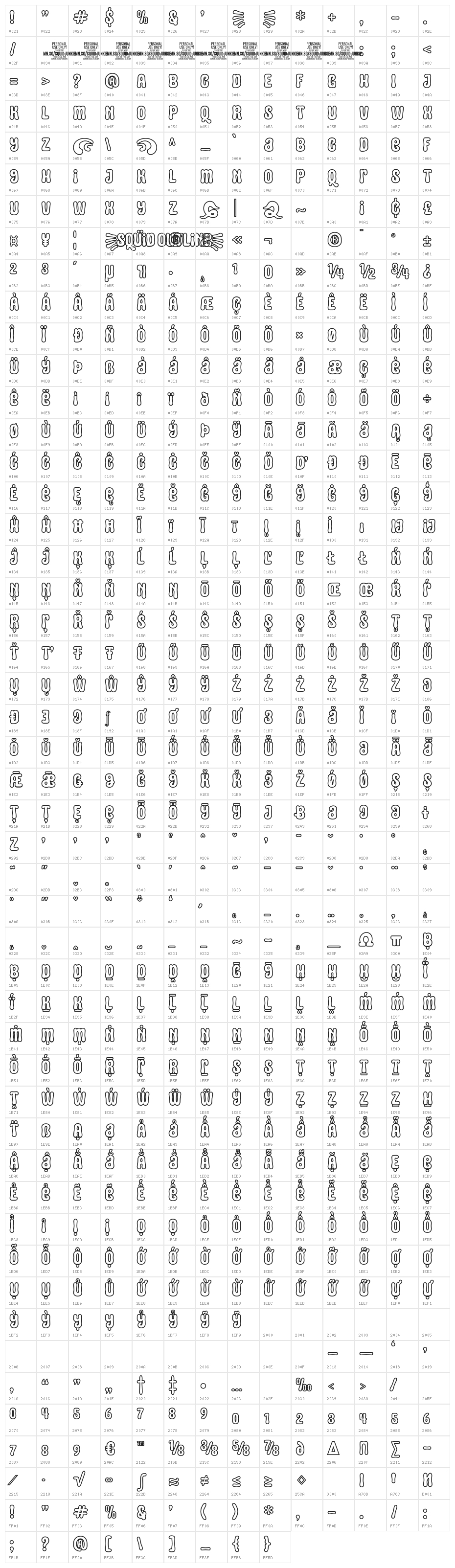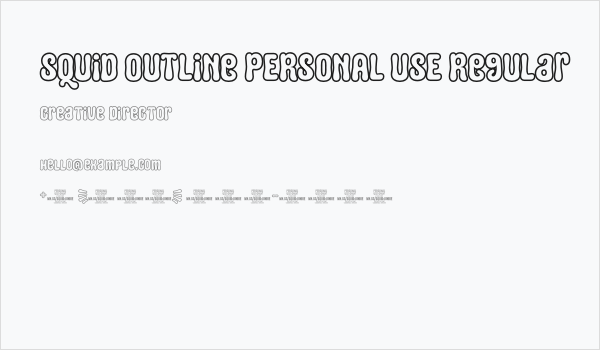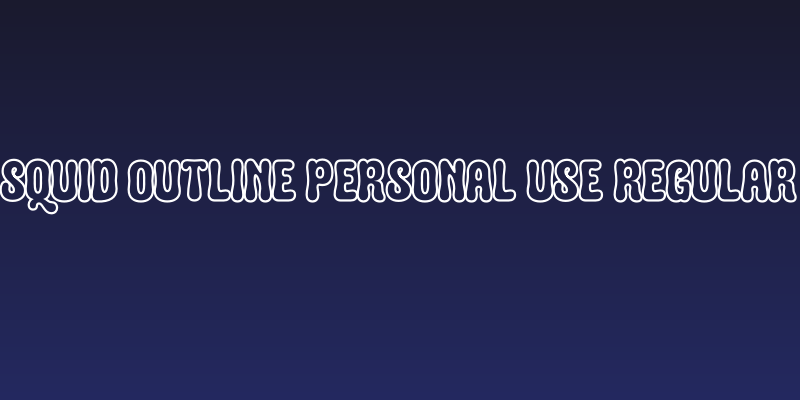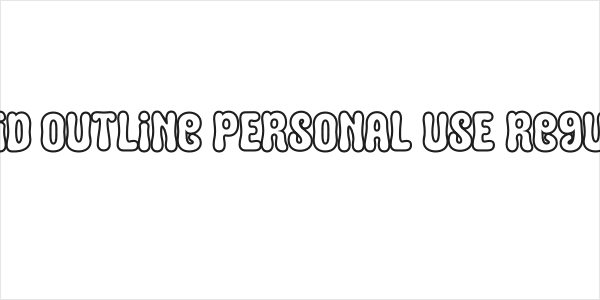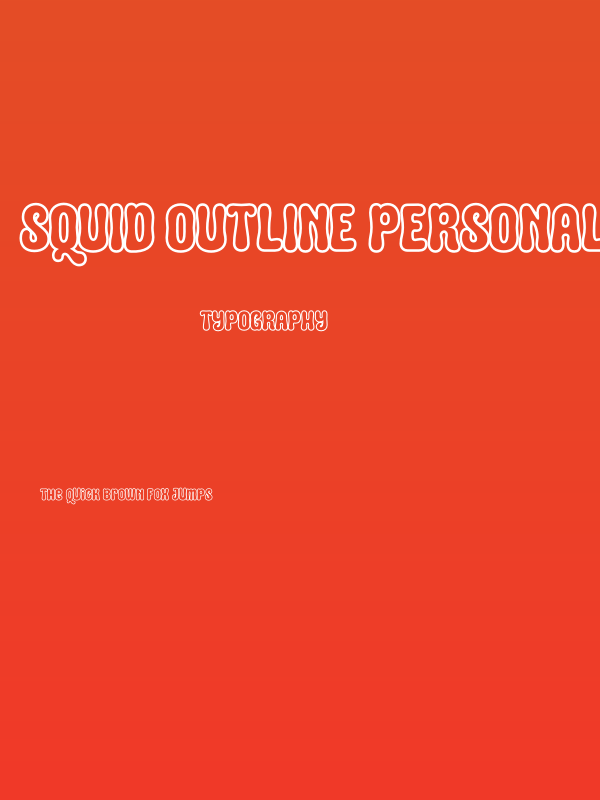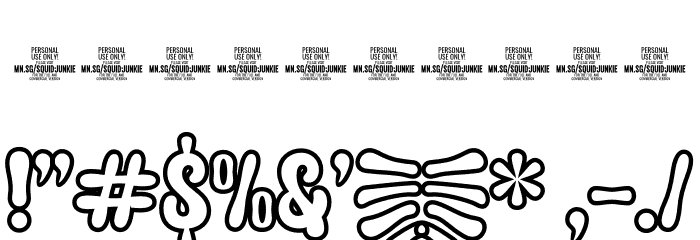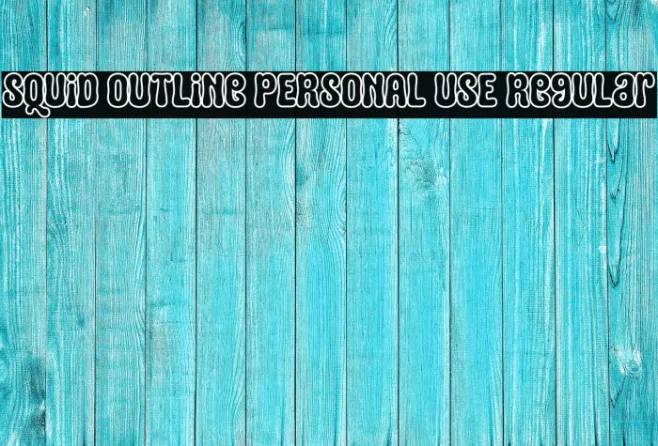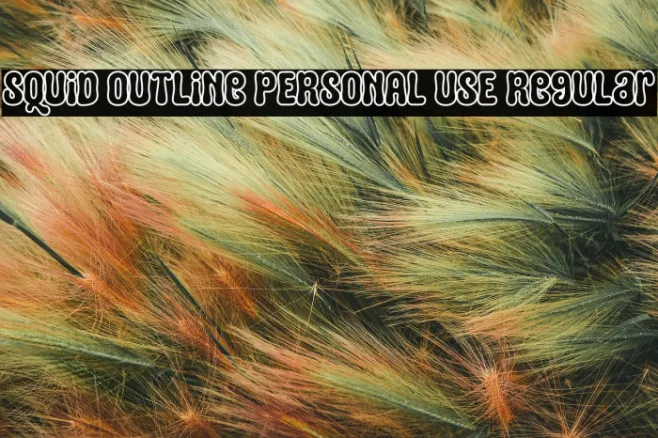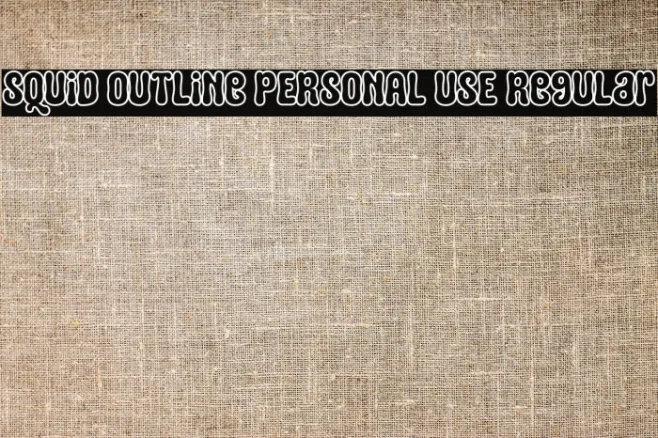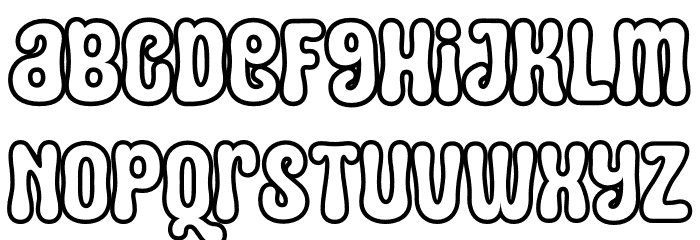
Squid Outline PERSONAL USE Regular Font
Squid Outline PERSONAL USE Regular Description
This font features a playful and bold outline style, characterized by its thick, rounded edges and hollow interiors. The letters have a consistent, bubbly appearance, giving them a fun and whimsical feel. The uppercase and lowercase characters maintain a uniform width, creating a cohesive look across the alphabet. The numbers and special characters follow the same design principles, ensuring a harmonious overall aesthetic. This font's unique outline design makes it stand out, adding a touch of creativity and flair to any project.